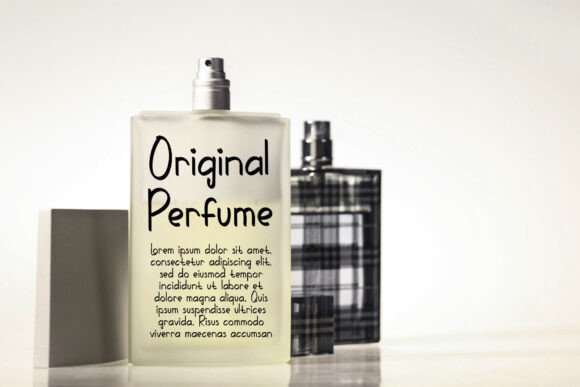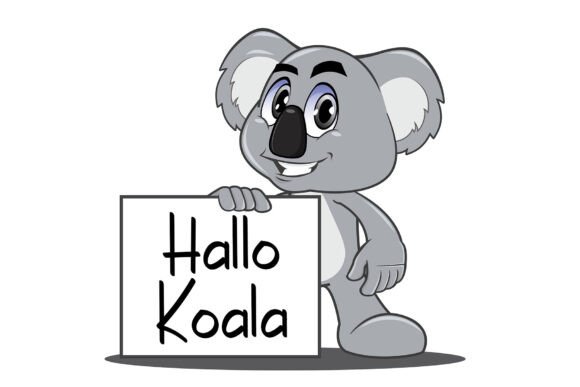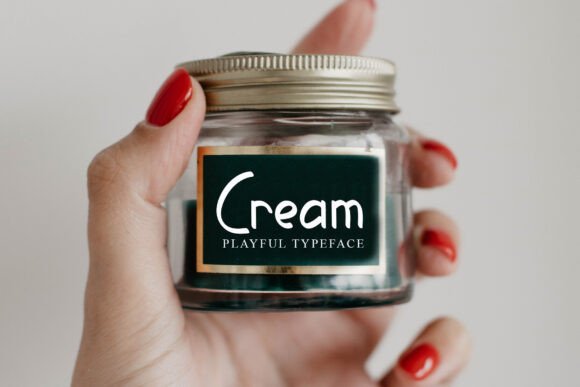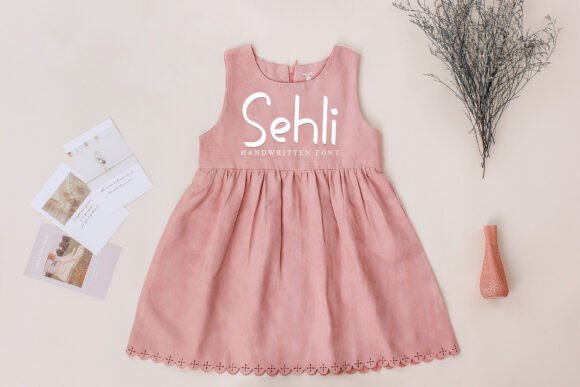
Introduction to Dedhi Font
Have you ever stared at a blank canvas, trying to bring your creative vision to life, only to be held back by the perfect font? We’ve all been there. But what if you could give your ideas a beautiful, handwritten touch with just one click? Enter the Dedhi Font, a stunning and elegant typeface that’s about to revolutionize your creative projects.
Whether you’re designing wedding invitations, greeting cards, billboards, logos, or business cards, the Dedhi Font is the perfect design resource to elevate your work. With its unique and natural hand-made touch, this font brings a level of sophistication and refinement that’s hard to achieve with traditional fonts. And with PUA encoding, you can access all the glyphs and swashes with ease, making it a high-quality addition to your design arsenal.
Dedhi Font
Honest Review: Dedhi Font
I recently came across the Dedhi Font and was excited to give it a try. This free download is a great addition to any designer’s toolkit, offering a high-quality, unique font perfect for creative projects.
Here are some things that work well with the Dedhi Font: ✨
- Unique character set: The Dedhi Font offers a wide range of characters, including some interesting and creative symbols.
- High-quality design: The font is well-designed and looks great on both a transparent background and a solid one.
However, there are some limitations to consider: ⚠️
- Limited font sizes: The font may not be suitable for large-scale text, and some characters may become distorted at larger sizes.
- No bold or italic versions: If you need bold or italic versions of the font for a project, you may need to find an alternative.
Overall, I was impressed with the Dedhi Font and would recommend it to designers looking for a unique, high-quality font for their creative projects.
Dedhi Font
The Dedhi Font is a unique and high-quality design resource that can elevate your creative project to the next level. With its transparent background and intricate details, this font is perfect for designers and artists looking to add a touch of elegance to their work.
The Dedhi Font is perfect for a variety of creative projects, including:
- Business cards and marketing materials.
- Artistic and design-based projects.